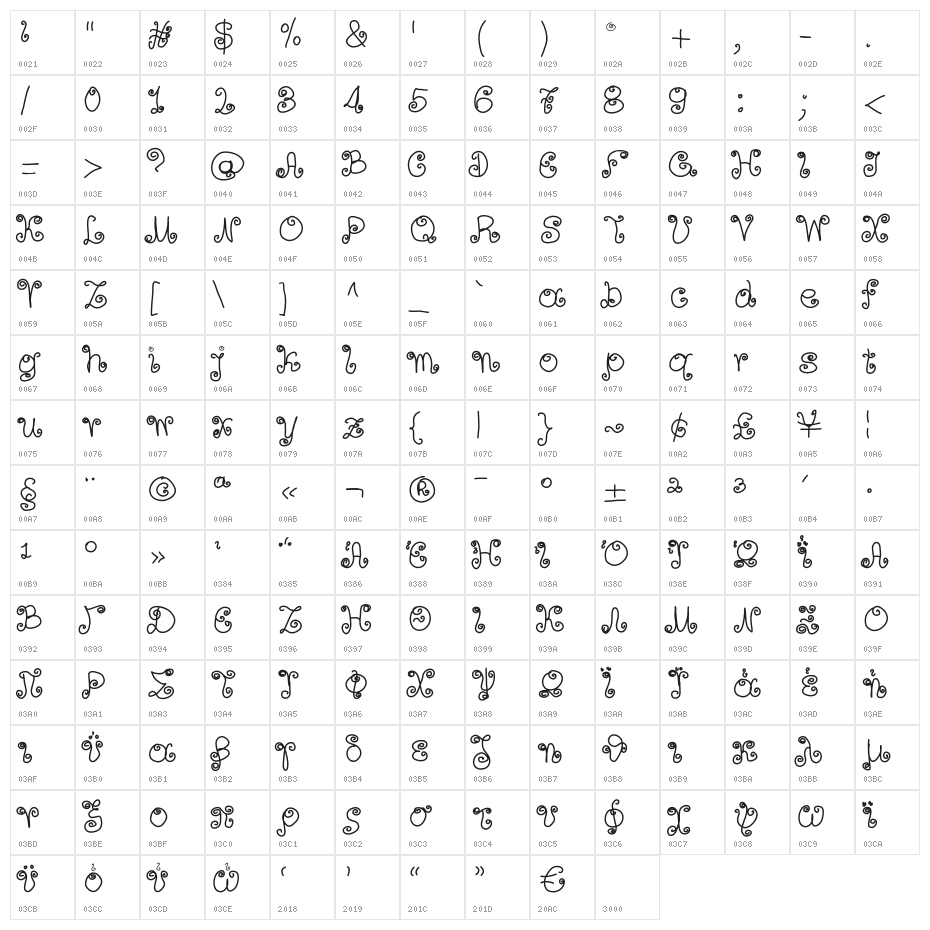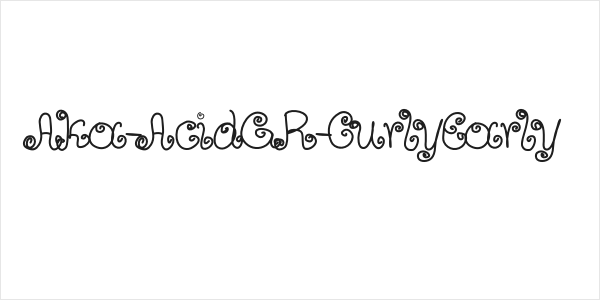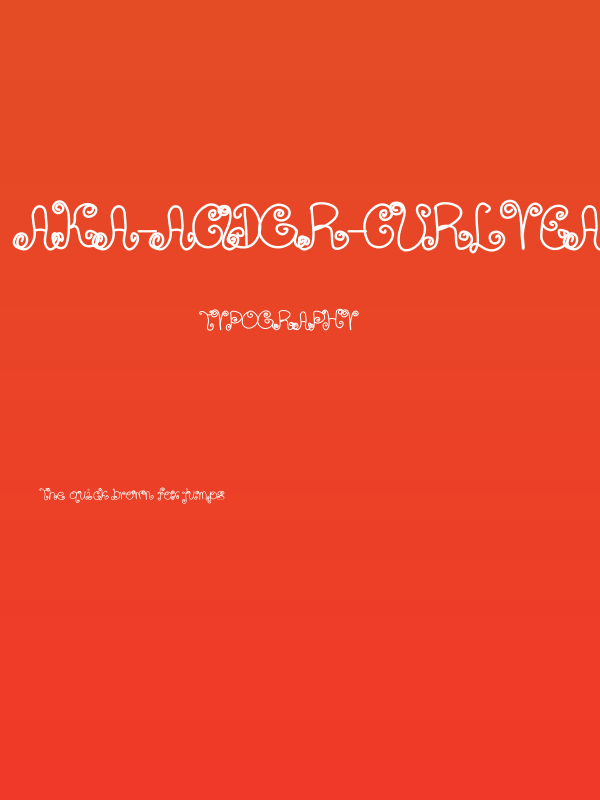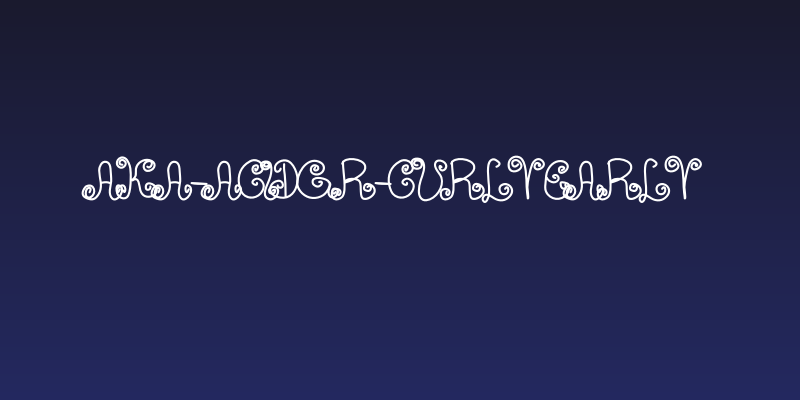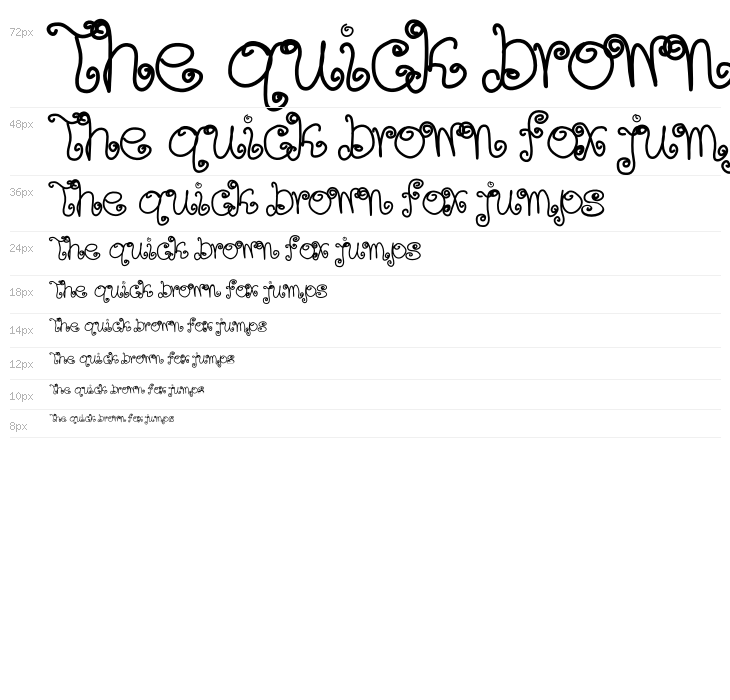
Aka-AcidGR-CurlyEarly Font
Aka-AcidGR-CurlyEarly Description
This whimsical and playful font features curly and swirling elements that give it a unique, decorative appearance. Each character is adorned with loops and curls, creating a sense of movement and fun. The uppercase and lowercase letters maintain a consistent style, with the uppercase being slightly more elaborate. Numbers and special characters follow the same curly theme, ensuring a cohesive look across all glyphs. The font's distinctive style makes it stand out, perfect for projects that require a touch of creativity and flair.
Use CaseLogos, Headlines, Creative projects
Proposed ProjectsIdeal for children's book covers, playful invitations, greeting cards, and creative branding projects.